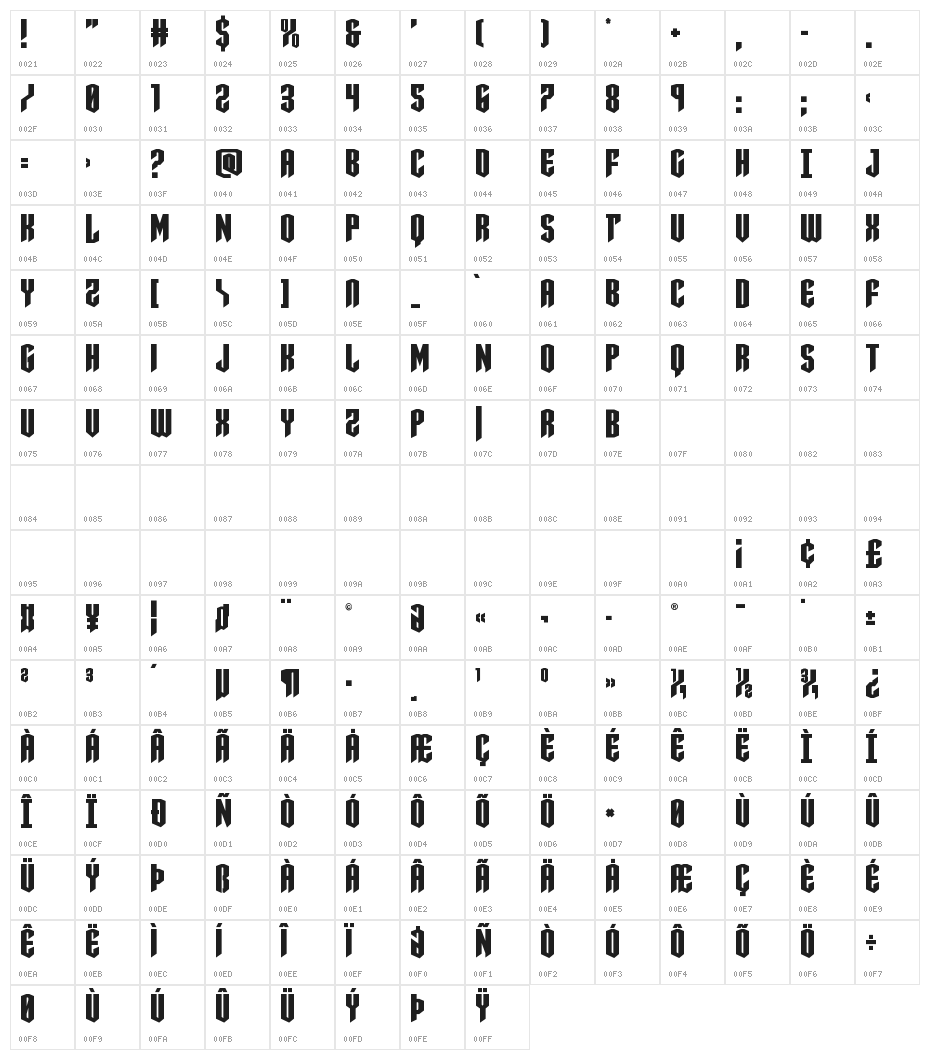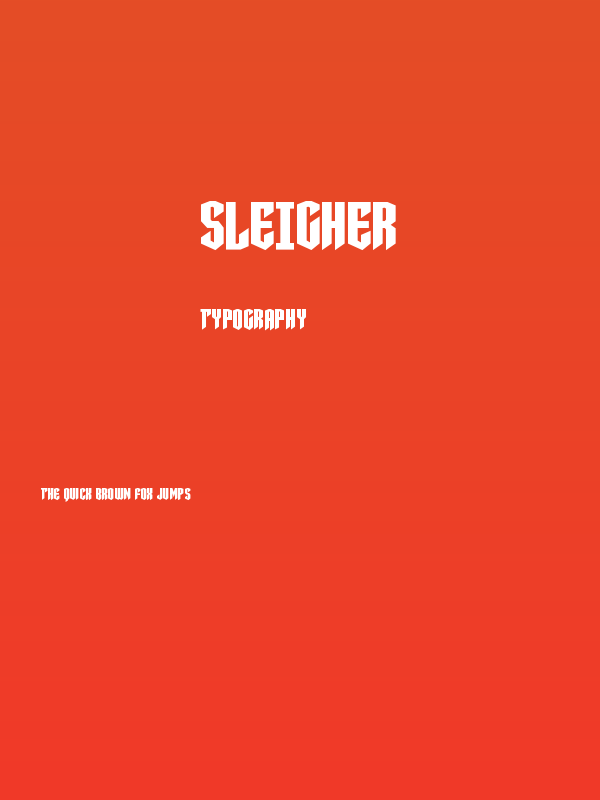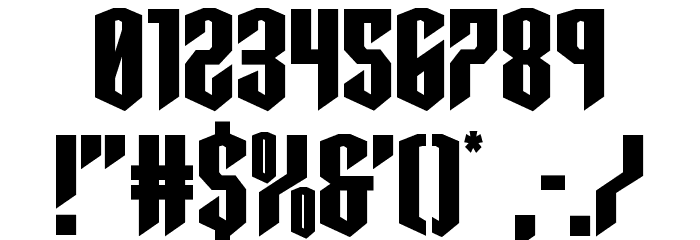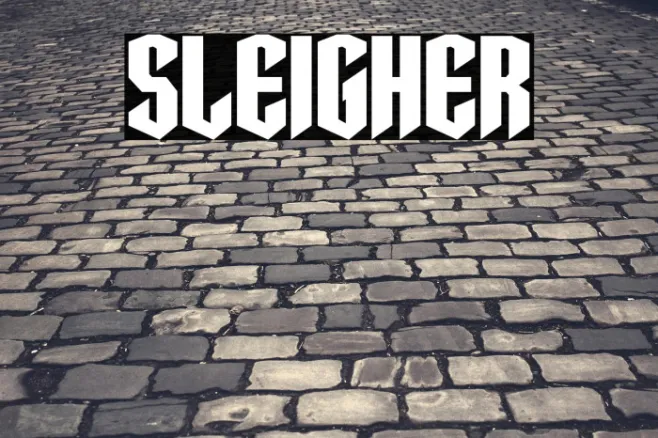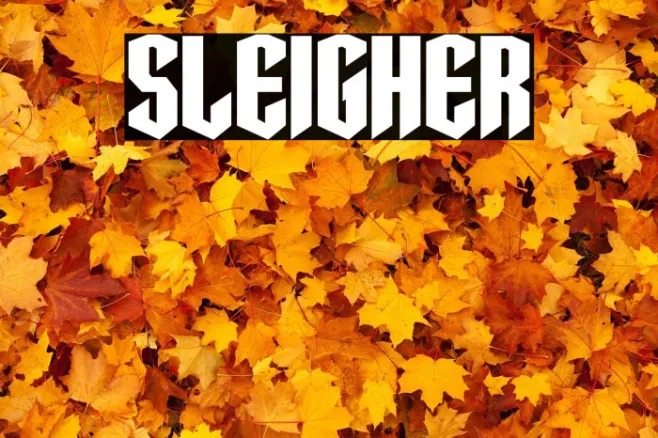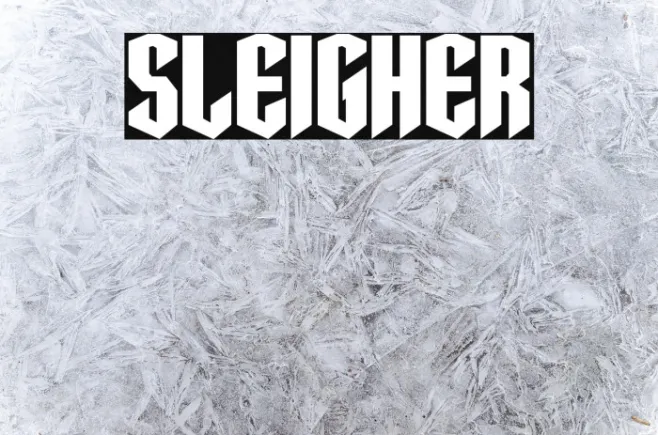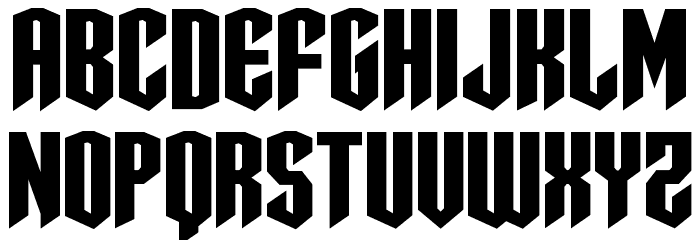
Sleigher Font
Sleigher Description
This font features a bold and striking design with sharp, angular edges and a strong presence. The uppercase letters are particularly prominent, with a geometric style that emphasizes vertical and horizontal lines. The characters are tightly spaced, giving a compact and cohesive look. The numbers and special characters maintain the same boldness and angularity, ensuring consistency across all elements. This font is ideal for creating impactful headlines or logos that require a modern and edgy appearance.
| Proposed Projects | Ideal for music album covers, sports team logos, event posters, and video game titles. |